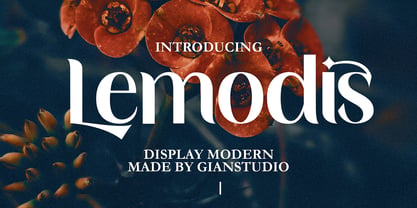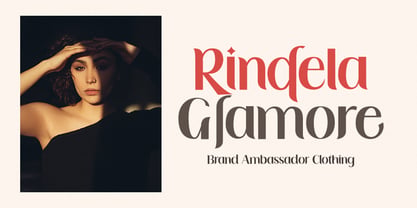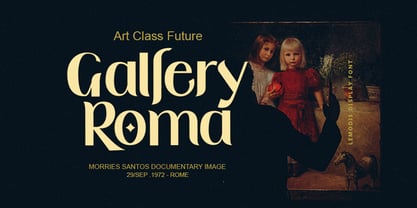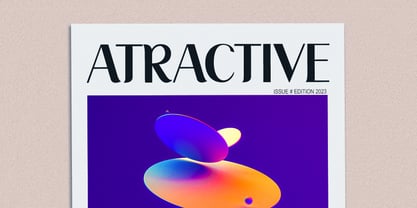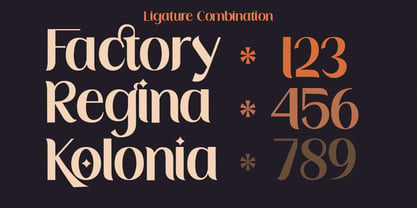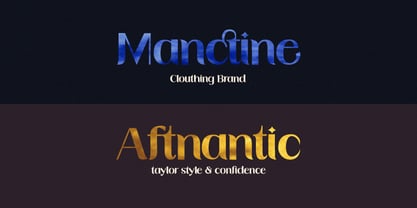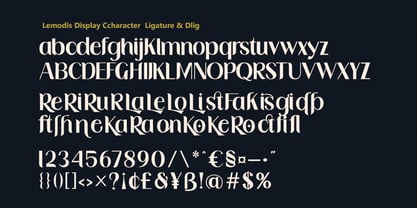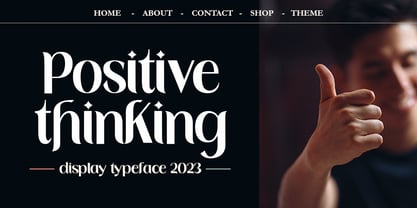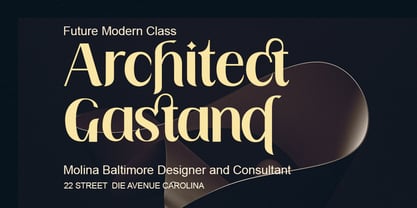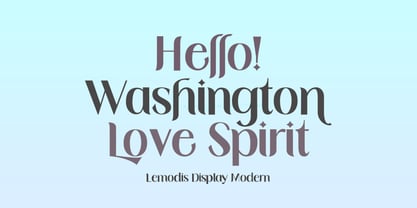
Lemodis
The Lemodis Font Family was designed by Yusliana M Isa and published by Gian Studio. Lemodis contains 1 styles. More about this family
Lemodis is a typeface with strong characteristics. His ideas stem from the social media era, exploring several other art eras and incorporating them into a strong Lemodis signature. The final font looks Subtle yet Modern, just like we did in the preview above, how a font can "stand" in your design.